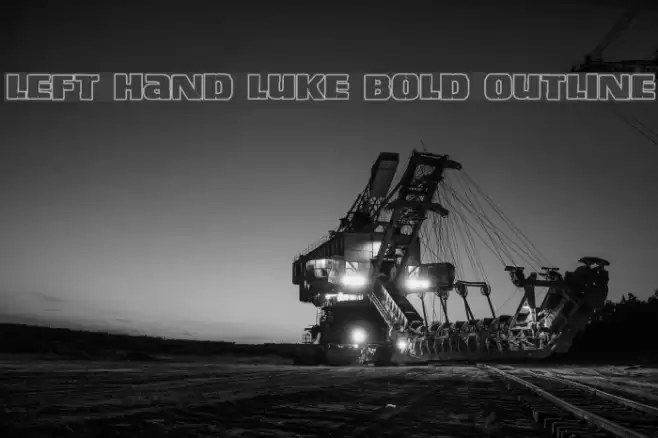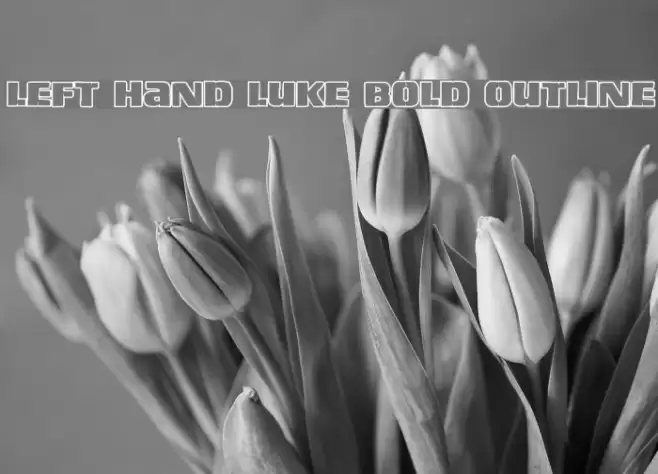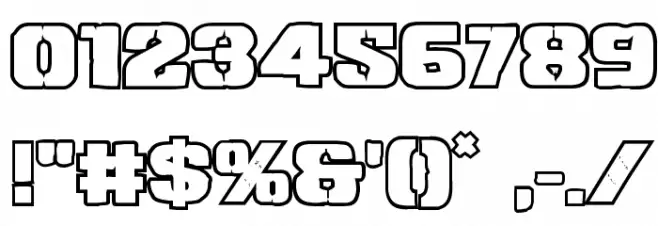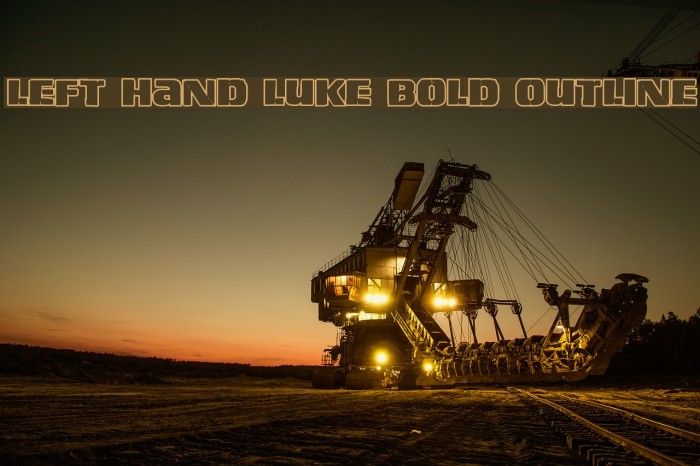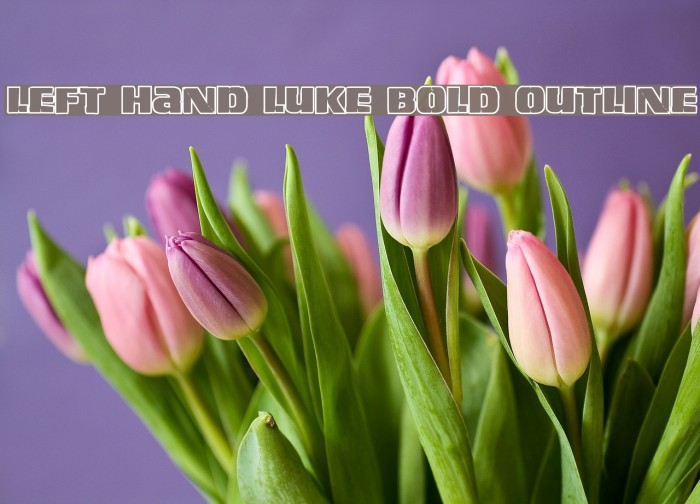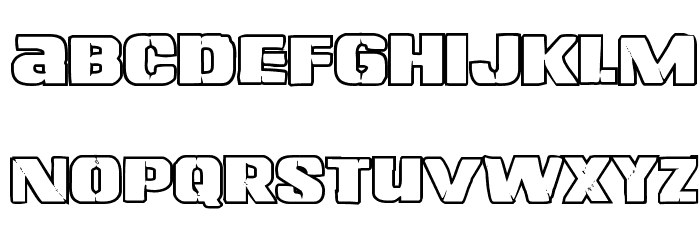
Left Hand Luke Bold Outline Font
Left Hand Luke Bold Outline Description
This font features a bold, outlined style that gives it a striking and impactful appearance. The characters are uppercase and lowercase alphabets, along with numbers and a selection of special characters. The outline effect creates a sense of depth and dimension, making it ideal for designs that require a standout, eye-catching look. The boldness of the font ensures readability while the outline adds a unique flair, suitable for creative and modern designs. Its geometric structure and uniformity across characters provide a cohesive and balanced aesthetic.
A bold, outlined font with a geometric and impactful style from Distorted Eroded fonts.
- Proposed Projects: Ideal for posters, headlines, logos, and any design requiring a bold statement.